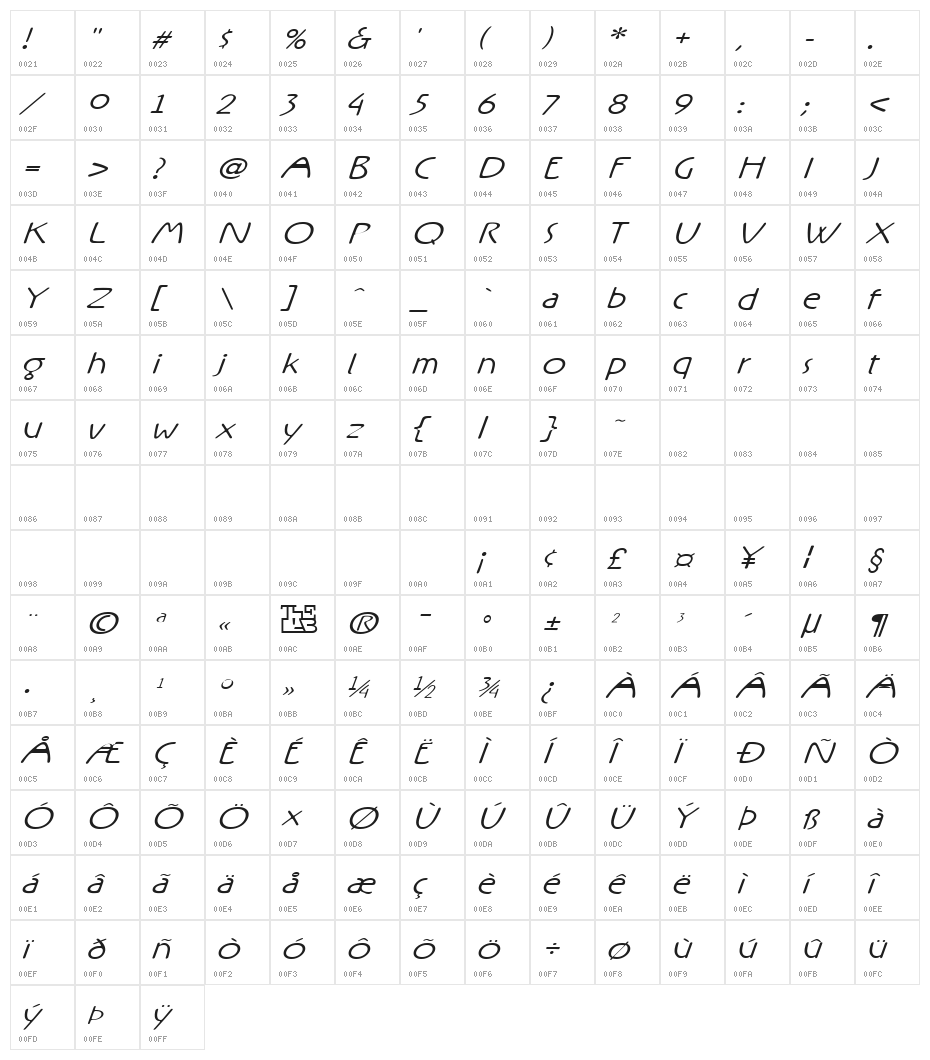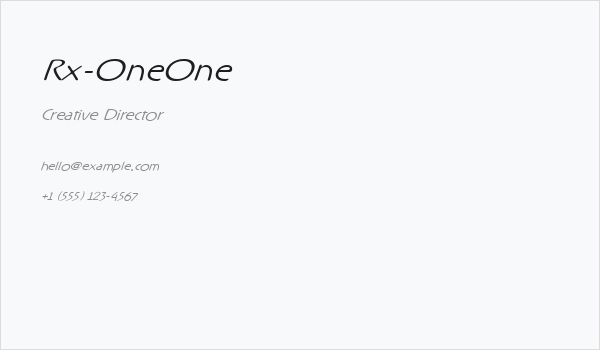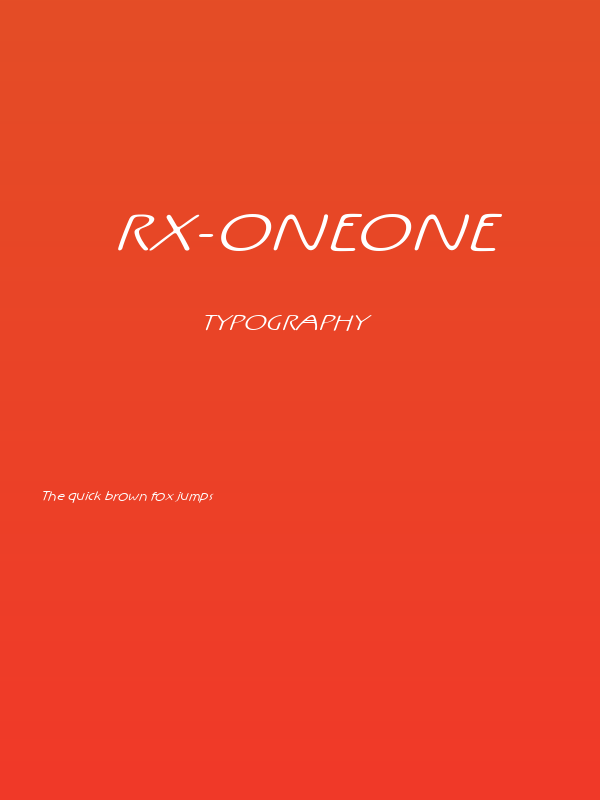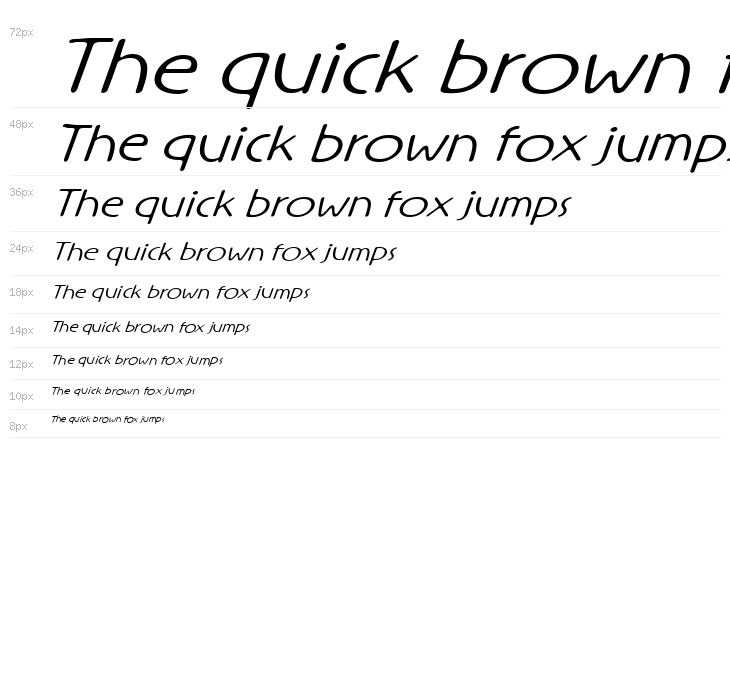
Rx-OneOne Font
Rx-OneOne Description
This font features a smooth, flowing script style with elegant curves and a slight slant, giving it a handwritten appearance. The uppercase letters are slightly elongated, adding a touch of sophistication, while the lowercase letters maintain a consistent flow that enhances readability. The numerals are clear and distinct, matching the overall aesthetic with their rounded forms. Special characters are well-integrated, maintaining the font's cohesive style. The font's design is both modern and timeless, making it versatile for various applications.